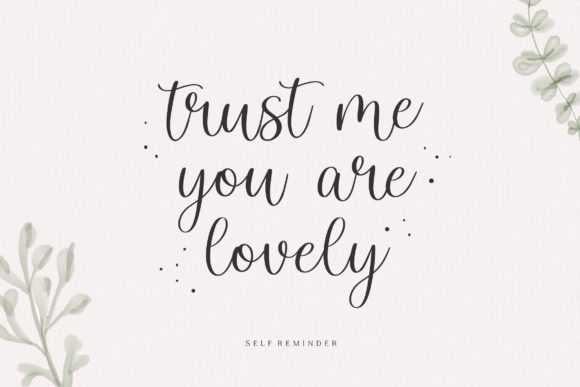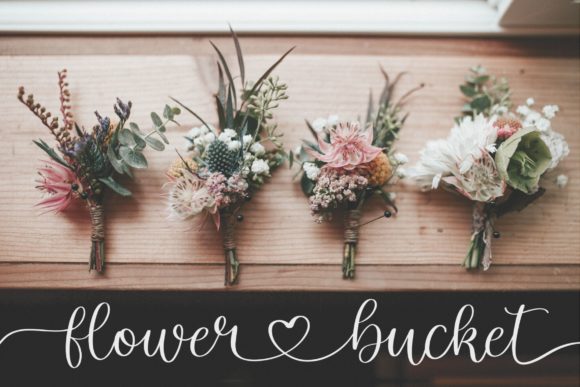
Martin Kamila Script Font
db-ku.com - Script & Handwritten -- Martin Kamila Script is a thin lettered, light and delicate script font, featuring a lovely flow. This font is PUA encoded which means you can access all of the glyphs and swashes with ease!